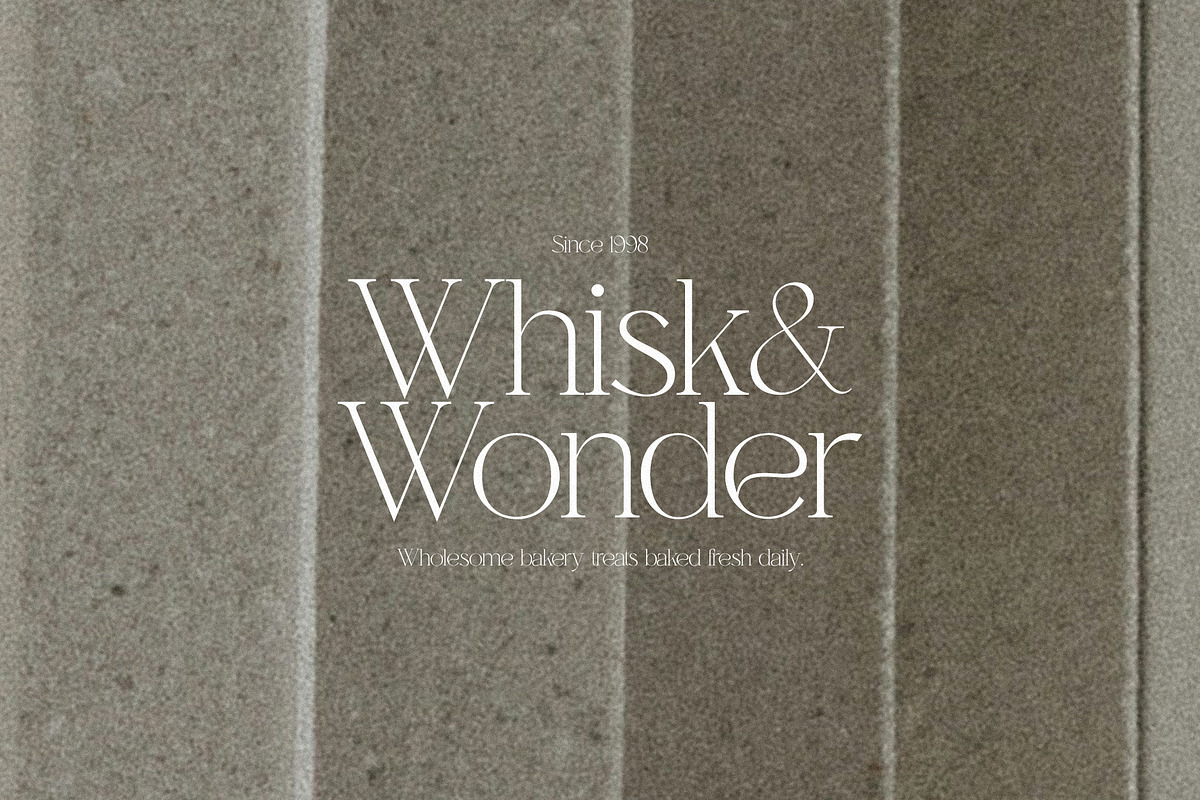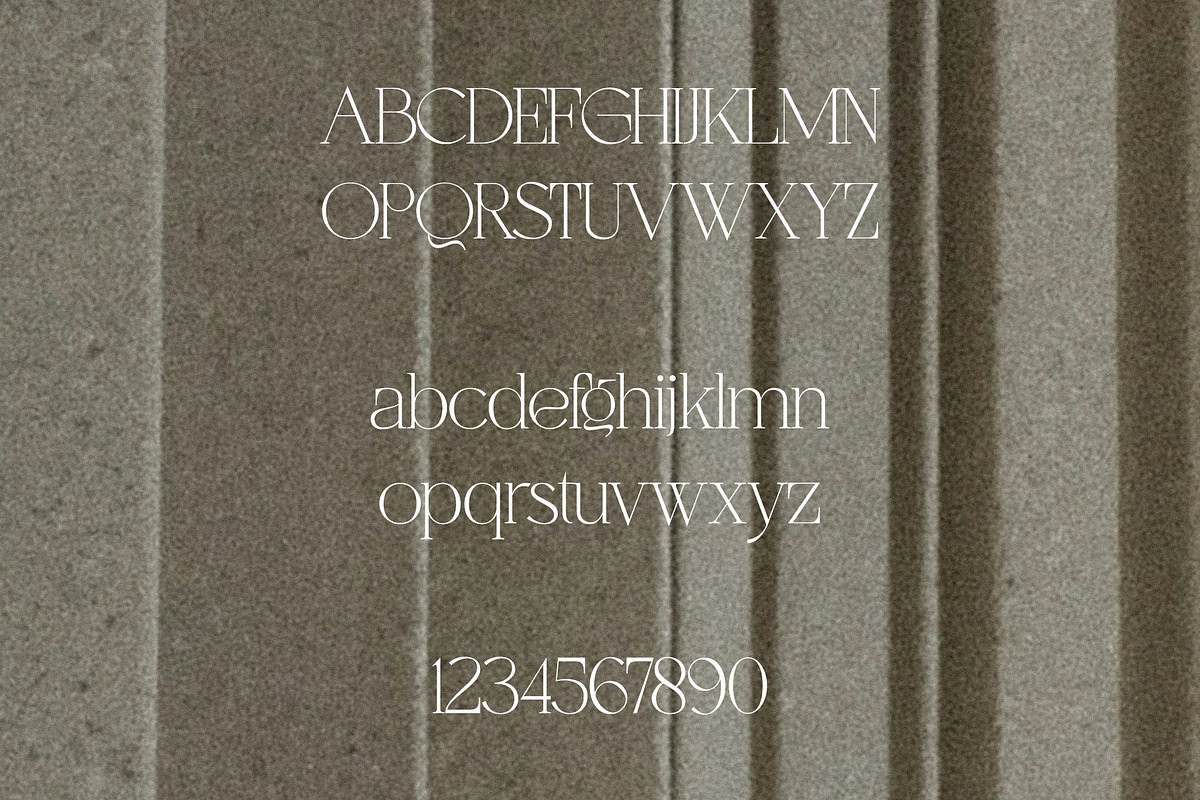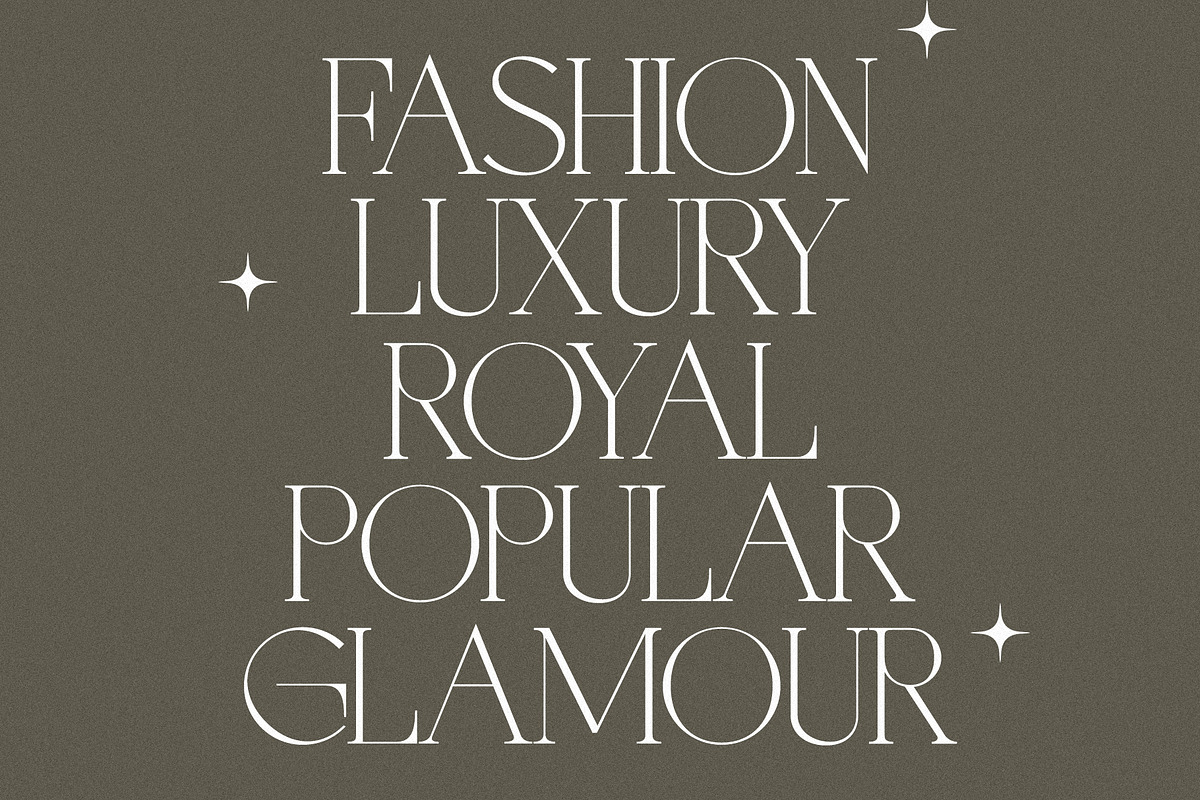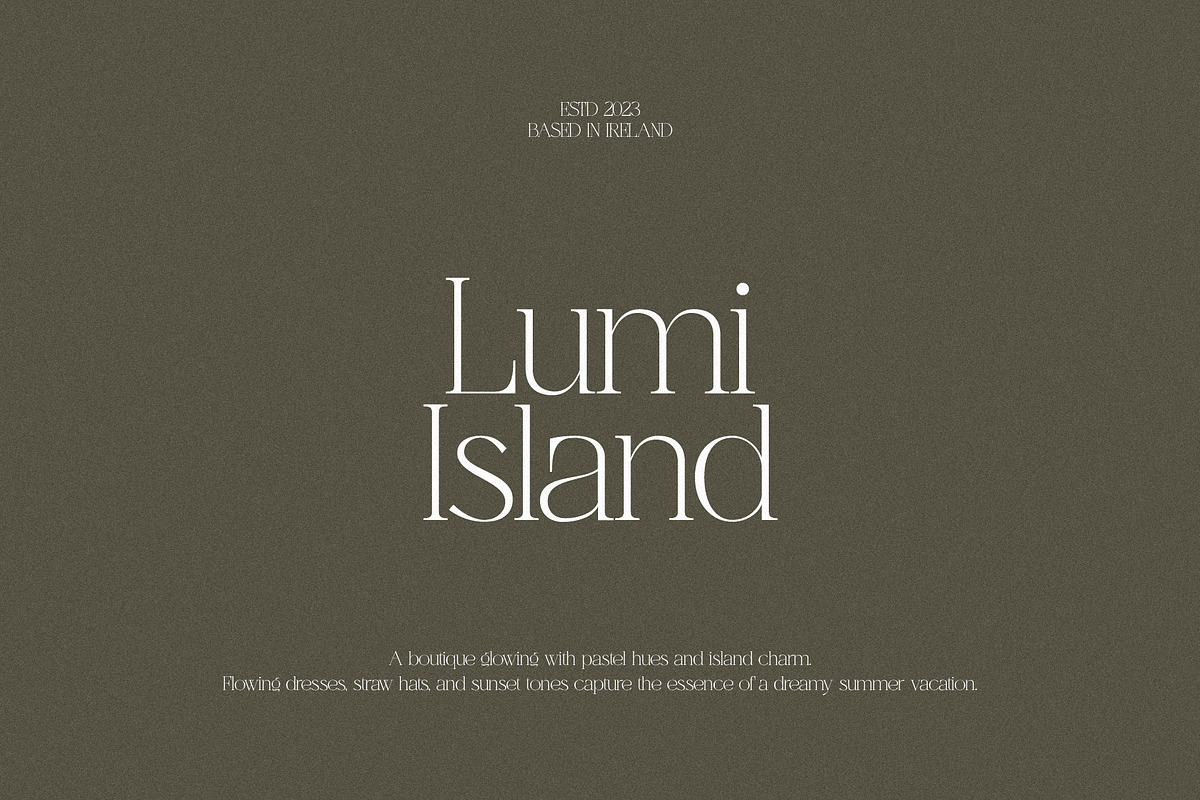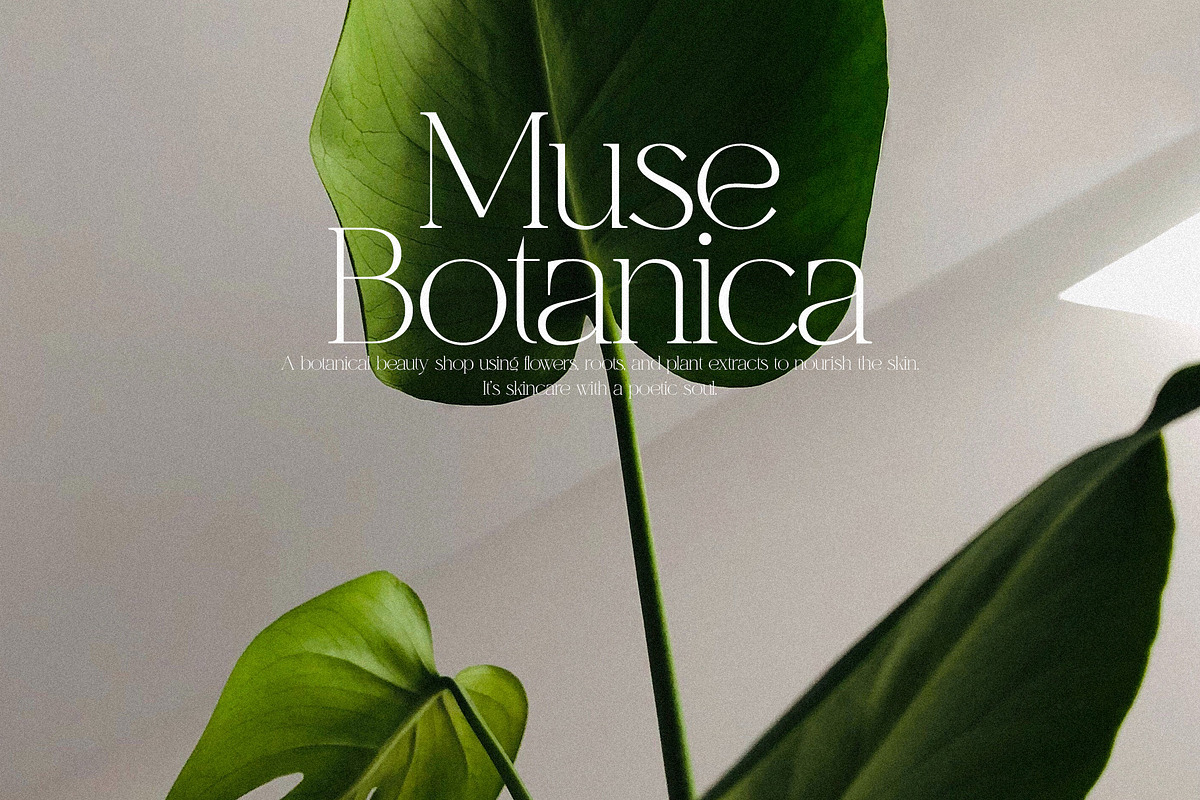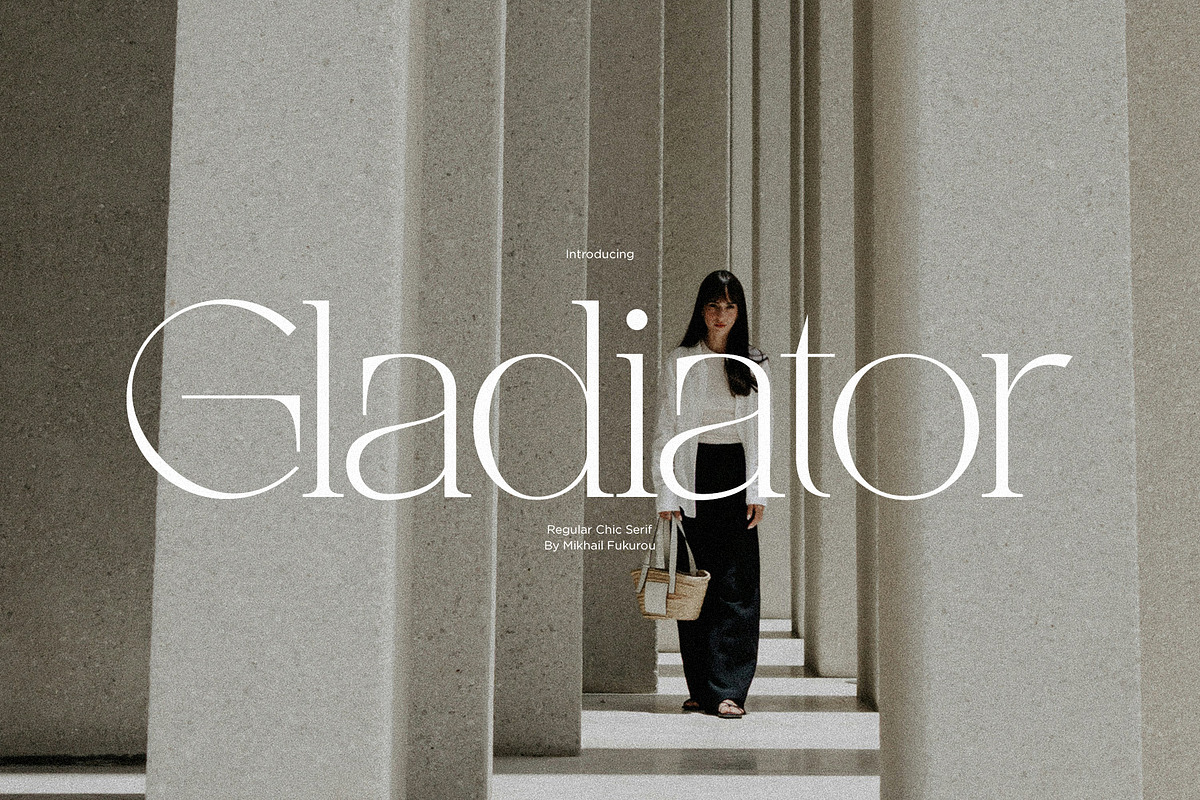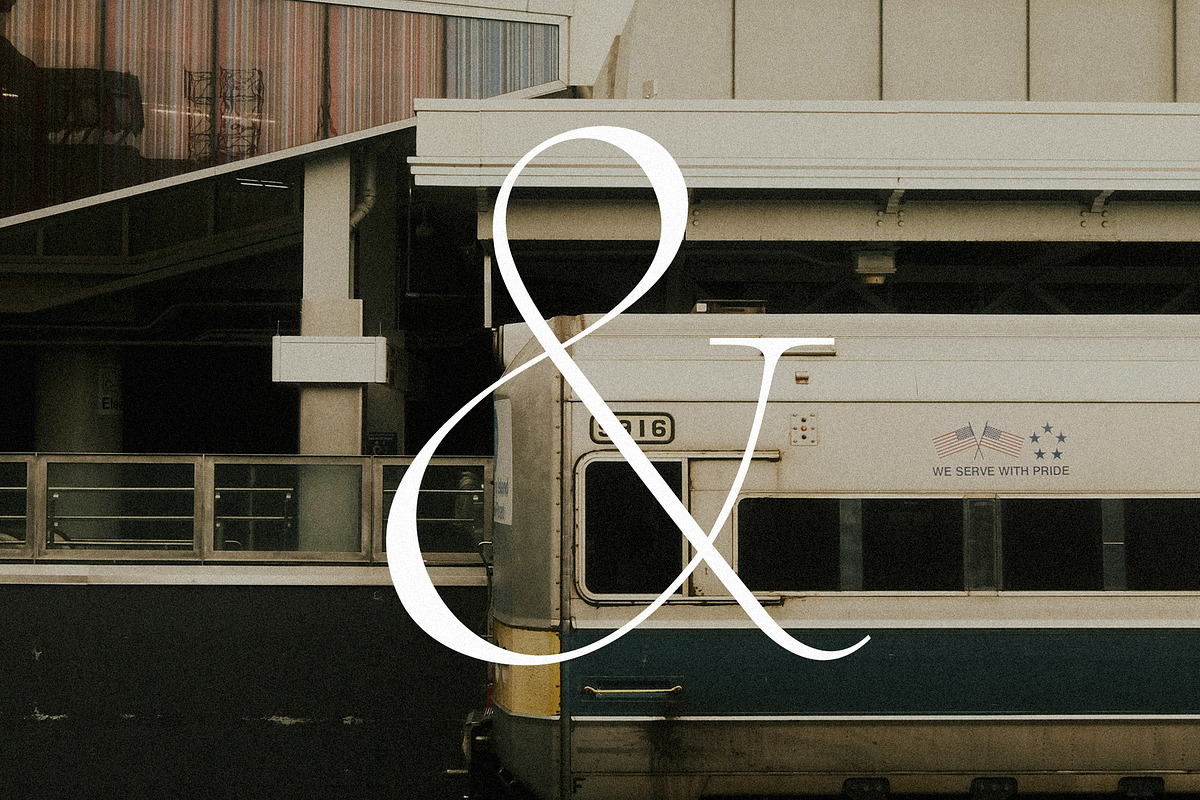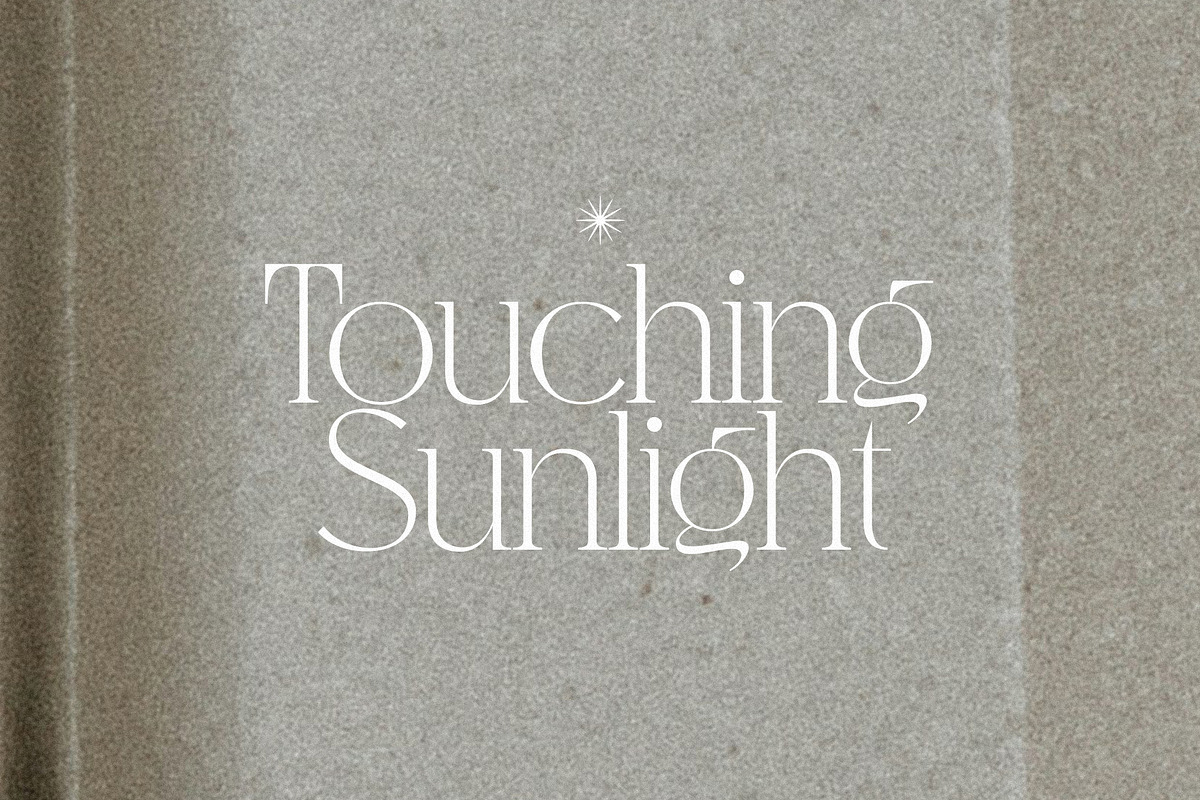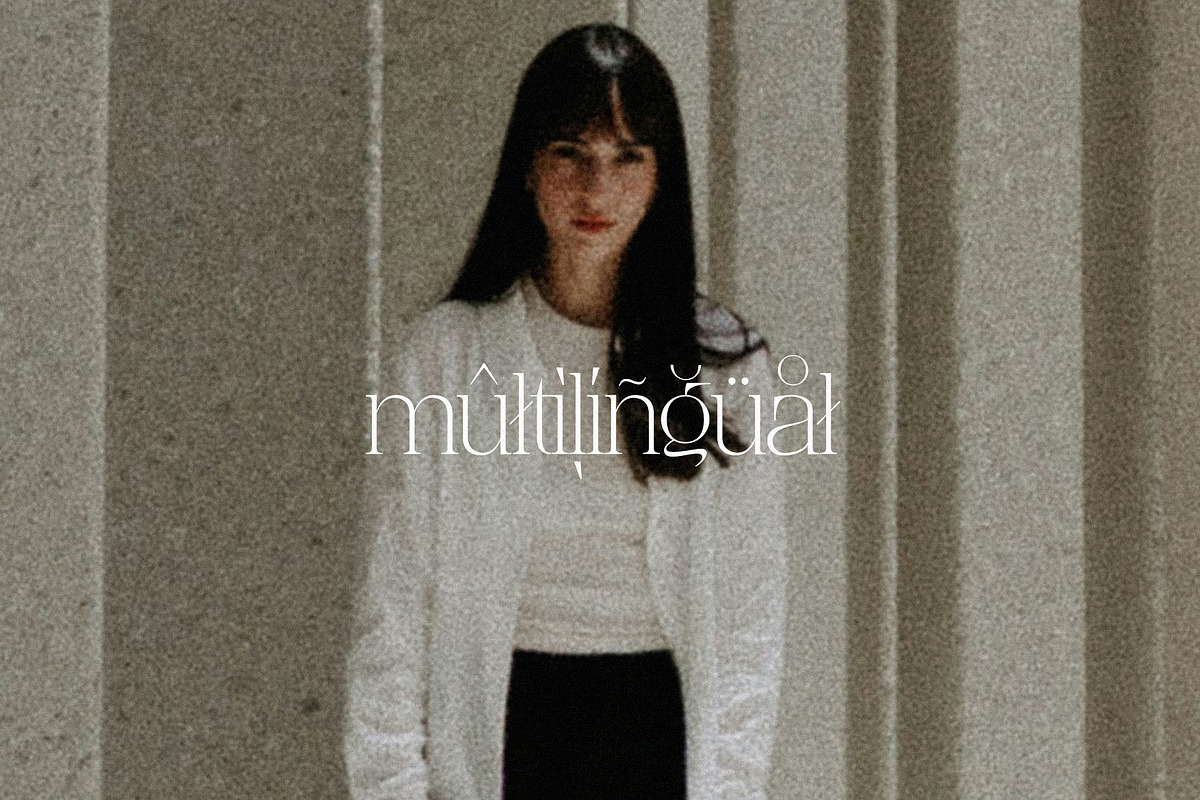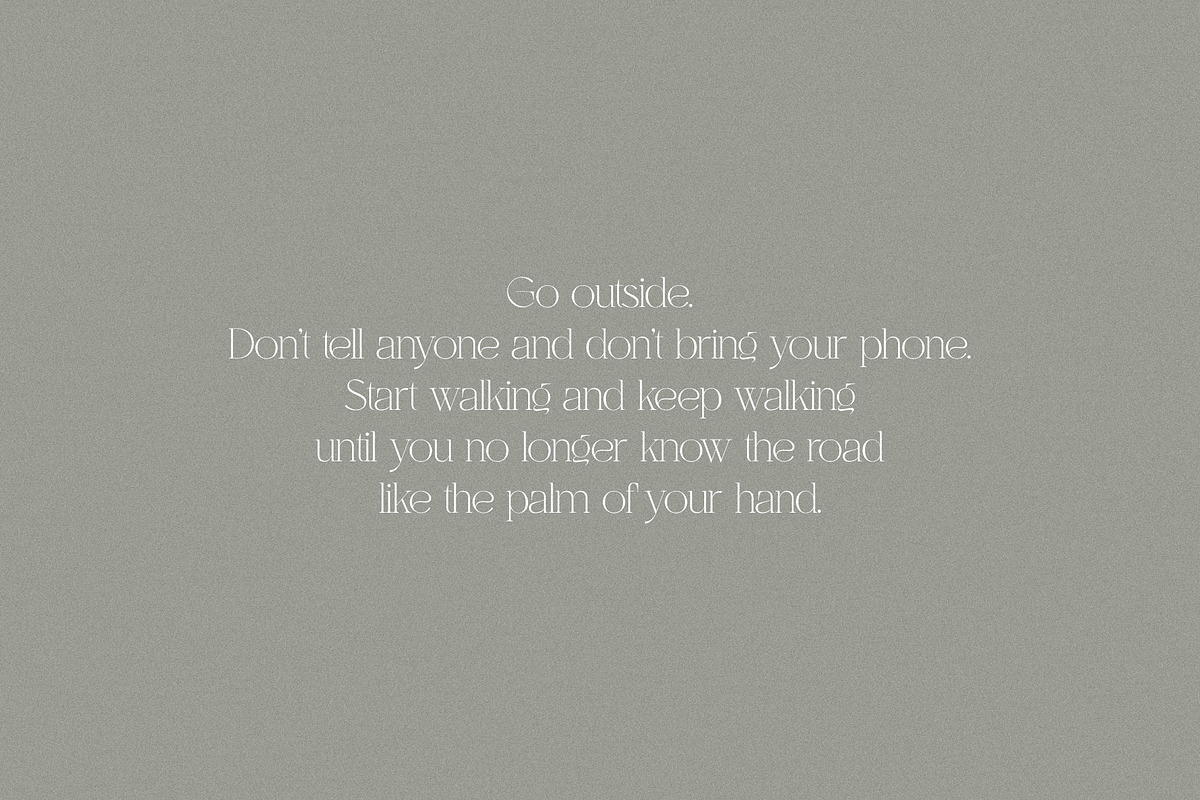
Gladiator - Chic Serif
Gladiator - Chic Serif brings a confident, stylish energy to your designs, combining the strength of classic serif lettering with a smooth, modern flair. Its sharp edges and graceful curves work together to create a look that feels both bold and beautifully polished. Perfect for branding, headlines, and anything that needs a touch of personality, this font adds a sense of elegance without feeling stiff - just a natural, refined charm that stands out effortlessly.
Gladiator features:
- Letters
- More than 300+ glyphs
- Basic Ligatures